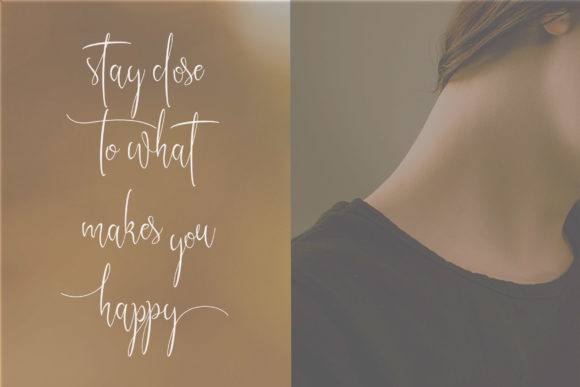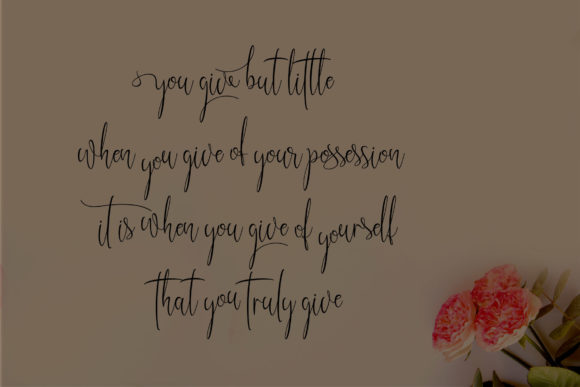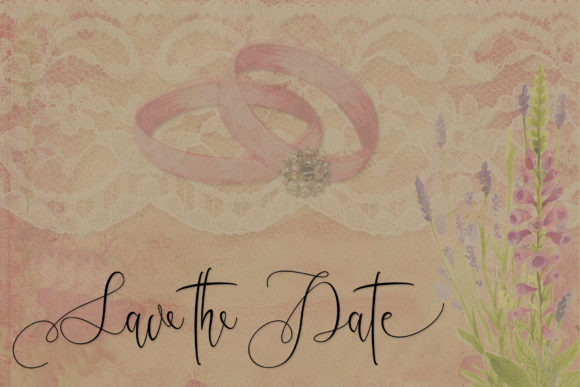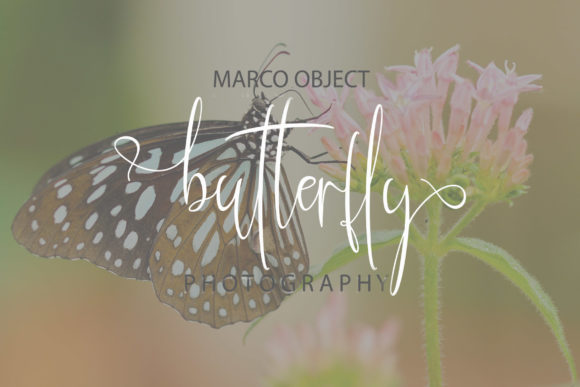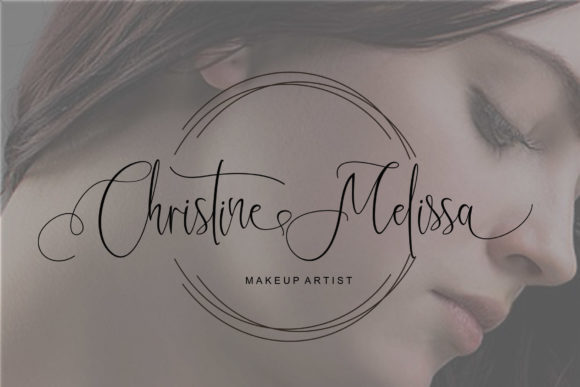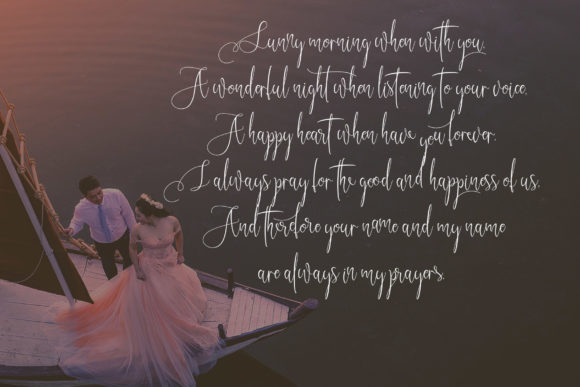
Introduction to Kristallian Script Font
Have you ever stumbled upon a design that made your heart skip a beat, simply because of the beautiful, handwritten font used? That’s exactly what happens when you work with the Kristallian Script Font. As a designer, you know the importance of choosing the right font to elevate your creative project and make it truly stand out. Whether you’re working on an invitation, a poster, or a branding project, the Kristallian Script Font is sure to add that extra oomph to your design.
With its unique, high-quality design, the Kristallian Script Font is the perfect resource for designers who want to give their projects a personal touch. And the best part? It’s available for free download, making it an accessible addition to any design project. Plus, its transparent background makes it easy to use on any background, giving you the freedom to get creative with your designs.
Key Features of Kristallian Script Font
- High-quality, hand-drawn design for a unique and creative touch in any project
- Transparent background, making it easy to use in various design applications
- Perfect for wedding invitations, branding, and other creative projects that require a touch of elegance
- Unique, cursive script style that adds a personal touch to any design project
Honest Review: Kristallian Script Font
I recently had the chance to work with the Kristallian Script Font, and I must say it’s been a game-changer for my creative projects. As a design resource, it offers a high-quality, elegant script that’s perfect for adding a touch of sophistication to any design.
What works well: ✨ The font is incredibly versatile, suitable for a wide range of design applications, from wedding invitations to luxury branding. The transparent background makes it easy to customize and integrate with other design elements. The font is also free to download, which is a huge plus for designers on a budget.
Some limitations: ⚠️ The font may not be suitable for extremely casual or playful designs, as it has a more formal tone. Additionally, the font can be quite large and may require adjustments to fit smaller design spaces.
Overall, I’m thoroughly impressed with the Kristallian Script Font. Its high quality, elegance, and versatility make it an excellent addition to any design toolkit. I’d highly recommend it to designers working on luxury or high-end creative projects.
Here are some key features that make this font stand out:
- High-quality, elegant script font
- Versatile and suitable for a wide range of design applications
How to Use Kristallian Script Font
Kristallian Script Font is a high-quality, free download font perfect for any creative project. Its elegant and sophisticated design makes it ideal for use in various applications.
Tips for Getting the Most Out of Kristallian Script Font
Use Kristallian Script Font on a transparent background to create a subtle and elegant design effect.
Experiment with different font sizes and colors to achieve the perfect balance for your creative project.
Kristallian Script Font is perfect for use in wedding invitations, branding materials, and other creative projects where a high-quality, elegant font is required.
Alternatives to Kristallian Script Font
Lato Script Font
Lato Script Font is a modern, elegant script font perfect for designers working on high-end creative projects. Its high quality and transparent background make it ideal for use on images or graphics. This font is suitable for use in logos, branding, and titles. It’s a great alternative to Kristallian Script Font due to its versatility and sophisticated look.
Carolyna Pro Font is a beautiful, high-end script font ideal for designers looking for a unique design resource. It’s perfect for use in creative projects, such as invitations, wedding stationery, and luxury branding. This font features a high-quality, transparent background and is suitable for use in logos, titles, and headings. It’s a great alternative to Kristallian Script Font due to its luxurious feel and sophisticated design.
Yes, the Kristallian Script Font comes with a transparent background, making it ideal for use in designs with complex backgrounds or overlays. This feature allows for seamless integration with your design elements, creating a professional and polished look.